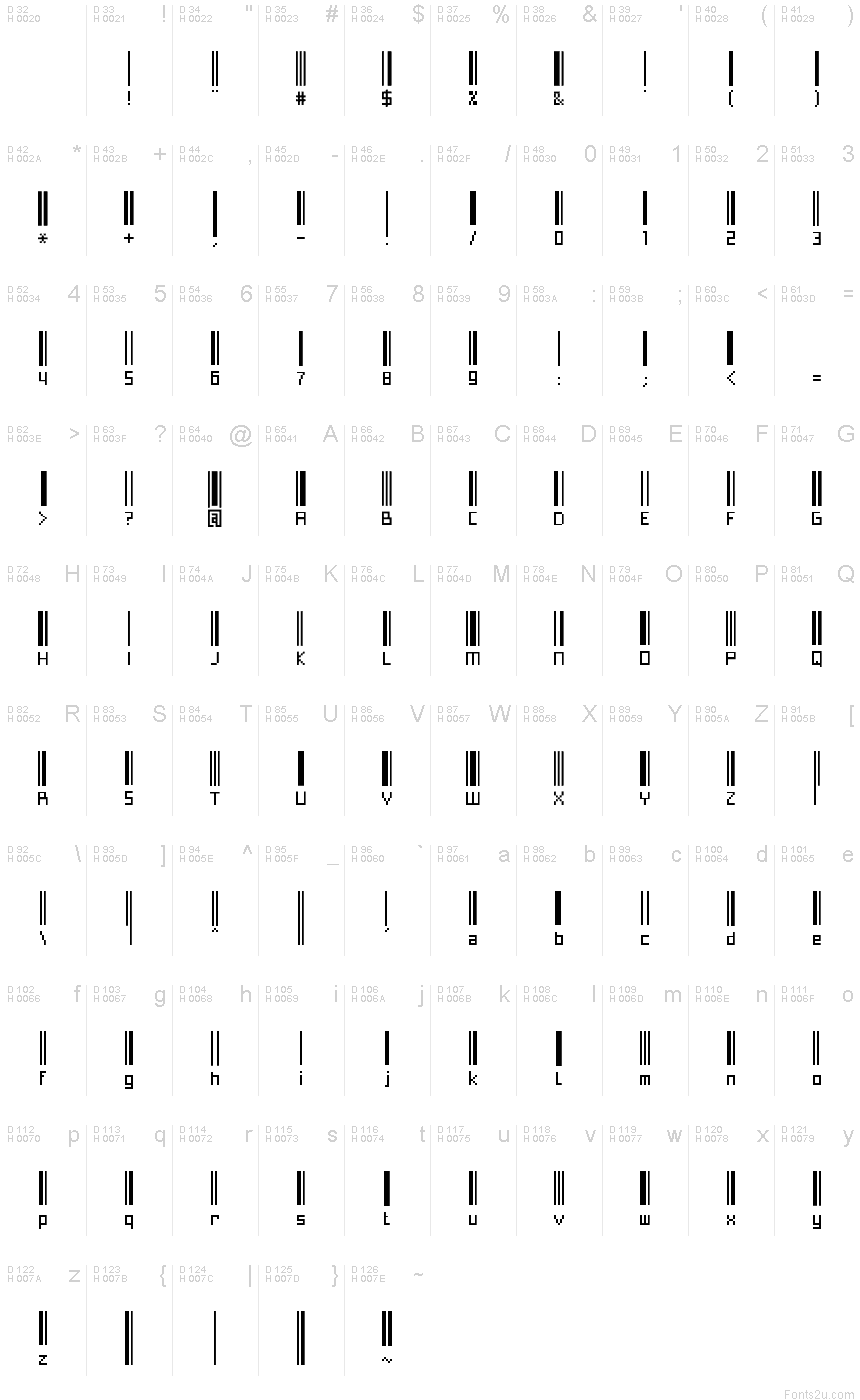
Paskowy
Paskowy font by Fontoholic is a free barcode dingbat font made from tall vertical bars with varied widths and spacing, giving it the familiar rhythm of a scannable code rather than a text alphabet. The set keeps the forms simple and upright, with a direct, stripped-back structure that reads clearly as a barcode motif.
Paskowy works well for product labels, packaging accents, ticket art, gift tags, event passes, and security-themed graphics because the repeated bars bring an immediate coded look. This free font also fits logo details, border strips, and decorative markers when you want a barcode reference without adding extra ornament.